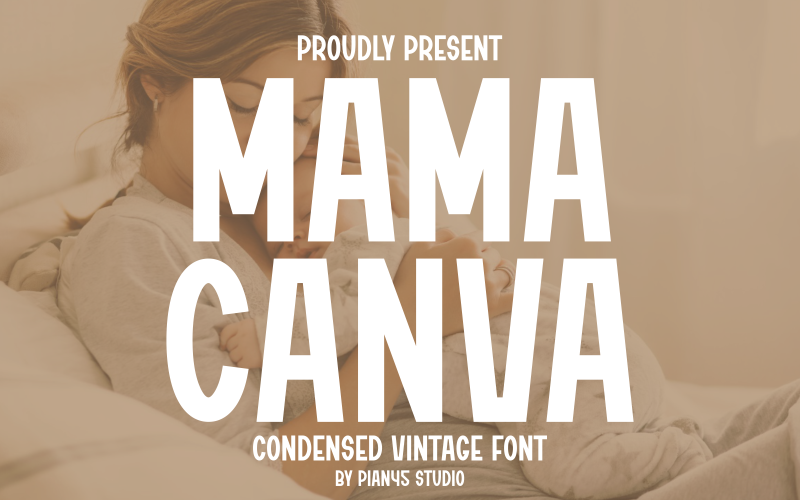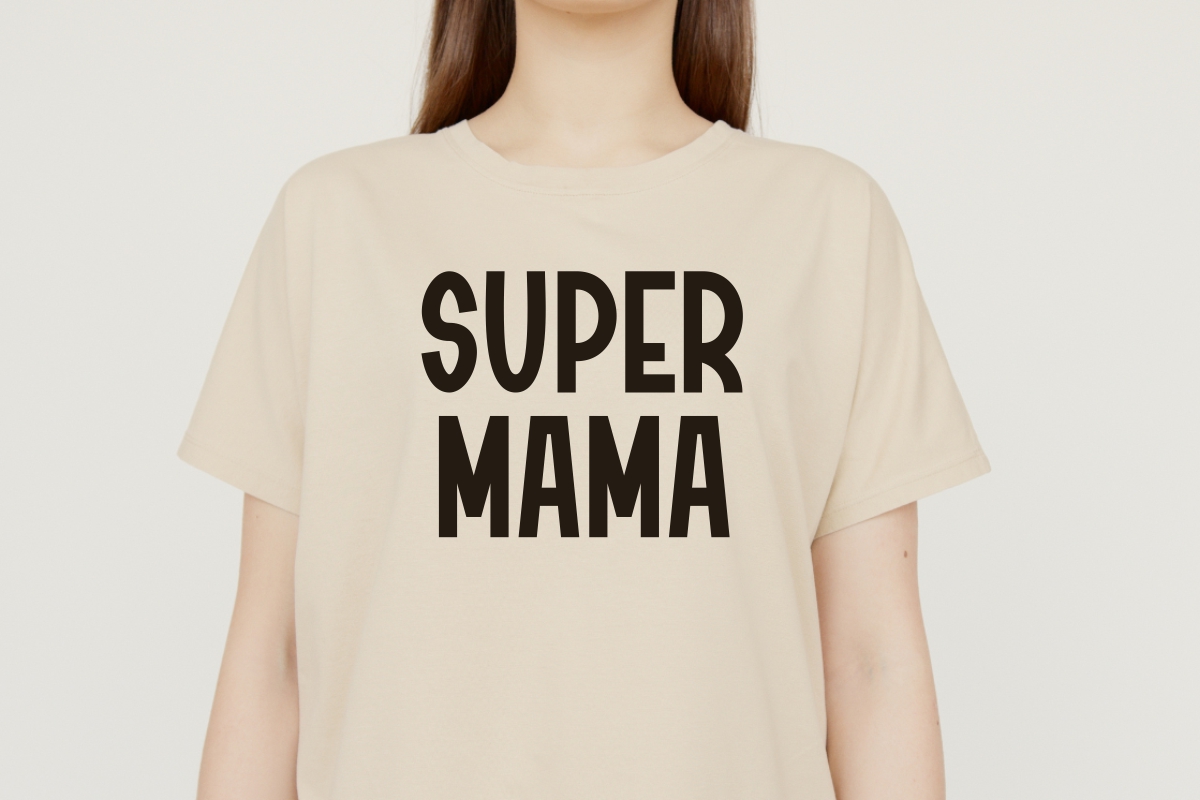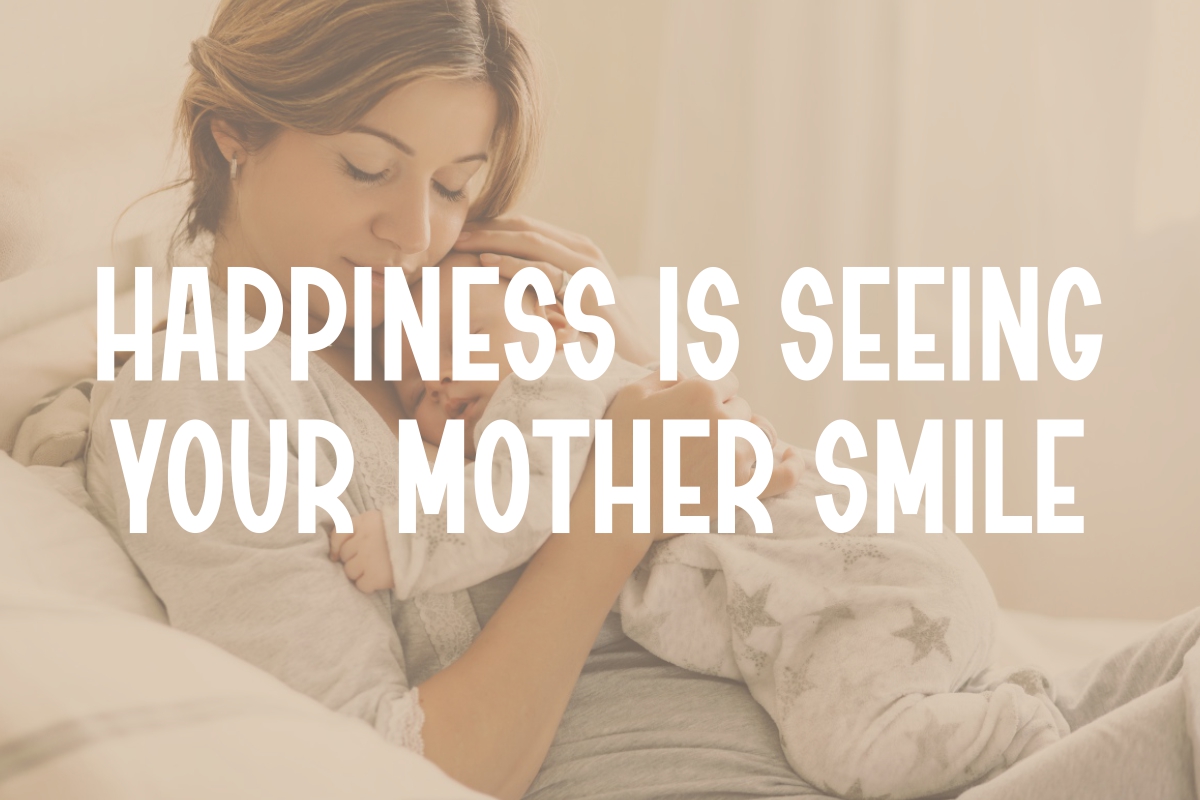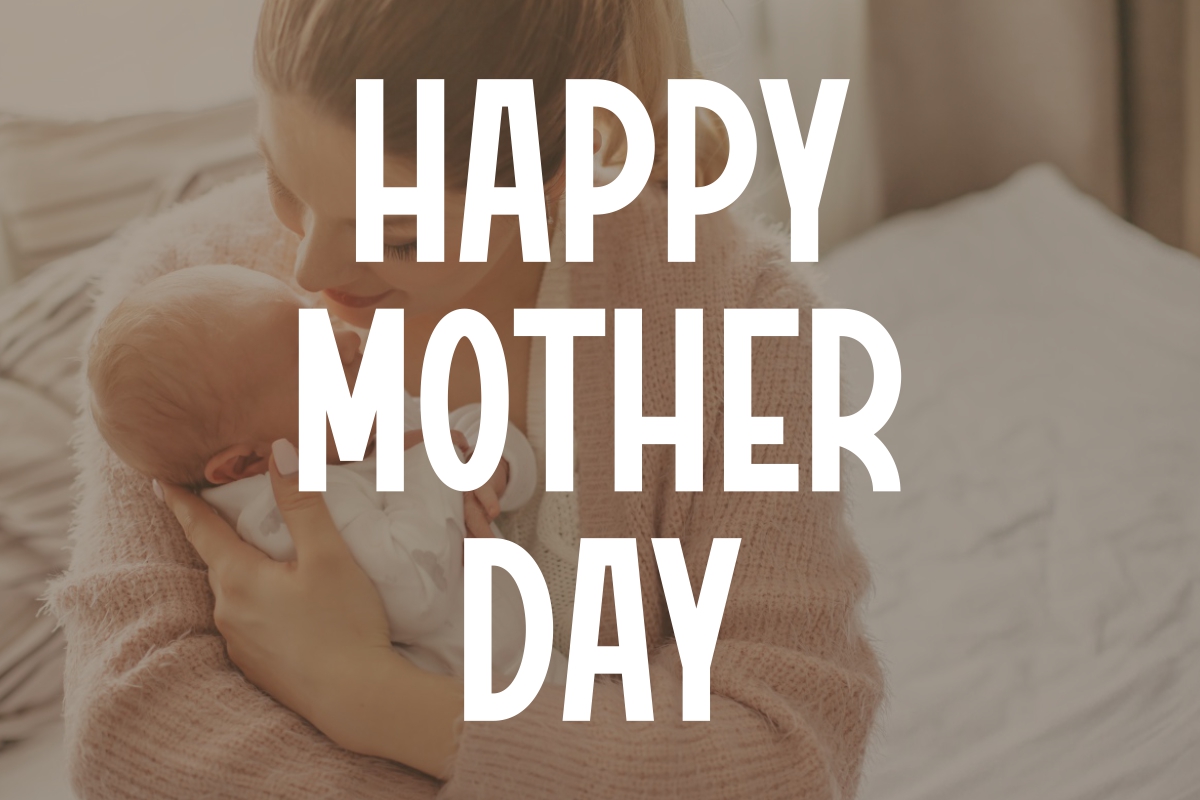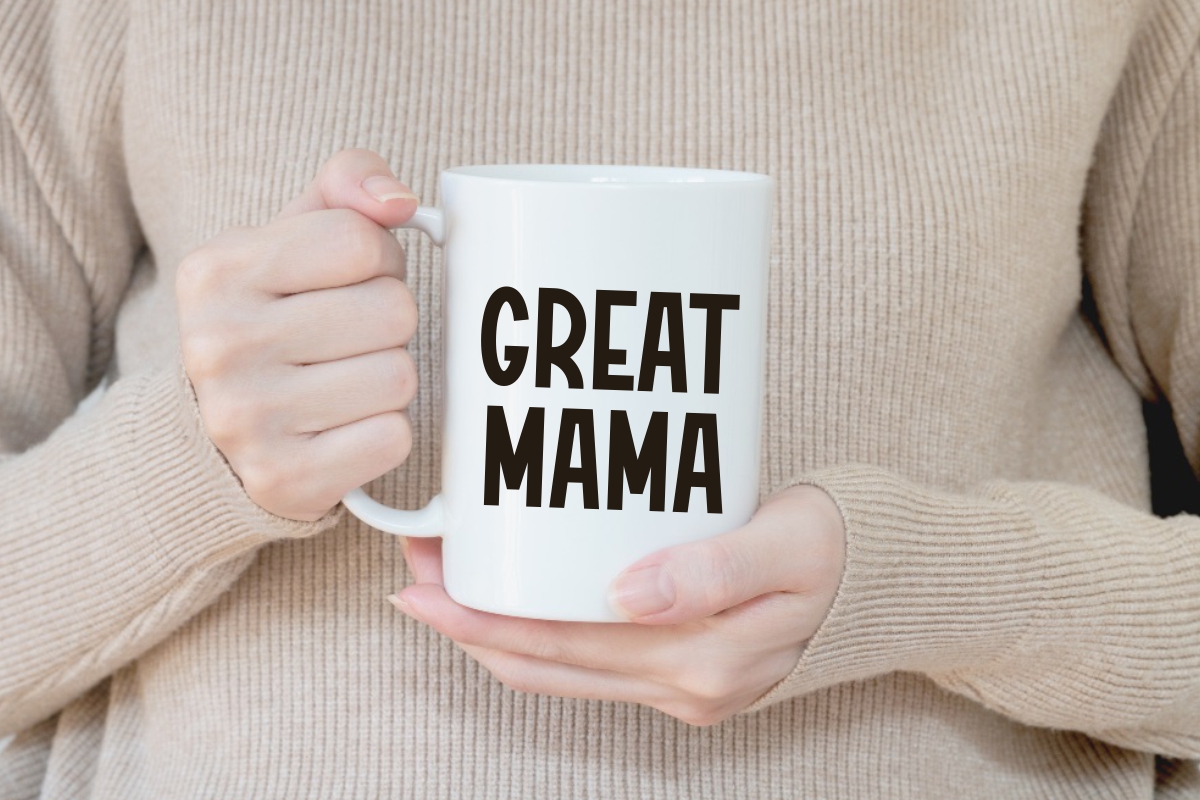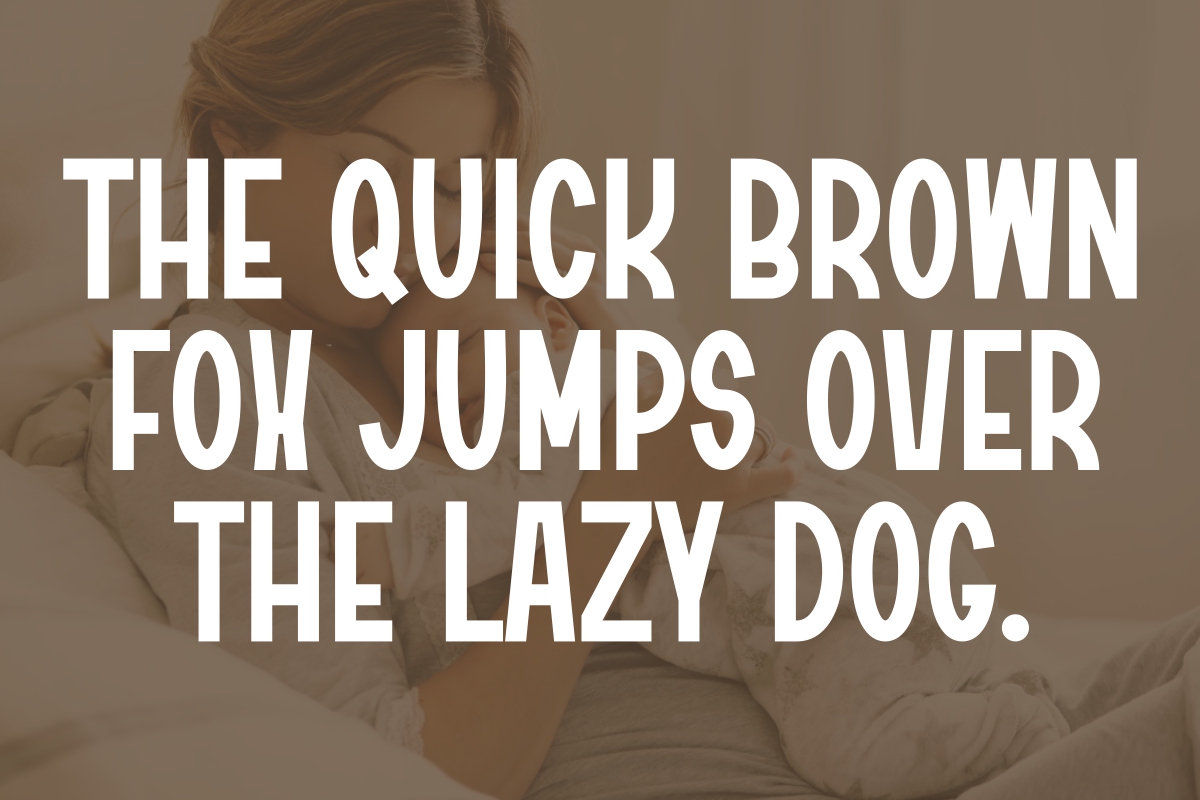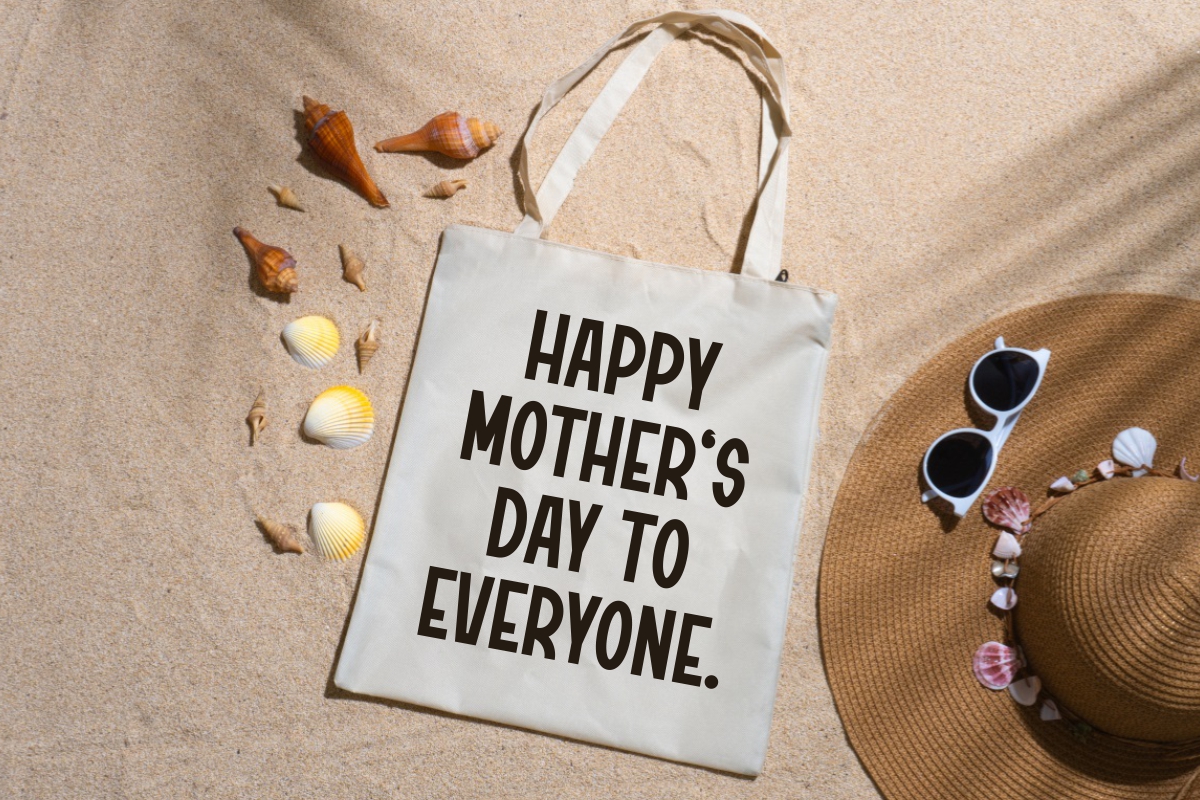
Mama Canva - Condensed Vintage Font
Mama Canva is a charming condensed vintage font that combines warmth, simplicity, and timeless style. Inspired by classic lettering with a modern minimalist twist, this typeface is perfect for designs that need a personal yet professional touch.
Its tall and narrow letterforms create a strong visual impact while maintaining elegance and readability. Mama Canva is ideal for logos, packaging, branding, quotes, social media posts, invitations, posters, and apparel design. Whether you’re crafting a cozy brand identity or a heartfelt print project, this font will bring a touch of authenticity and emotion to your work.